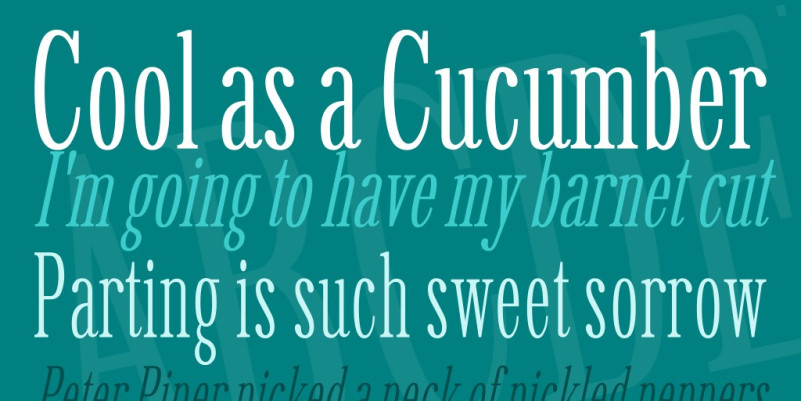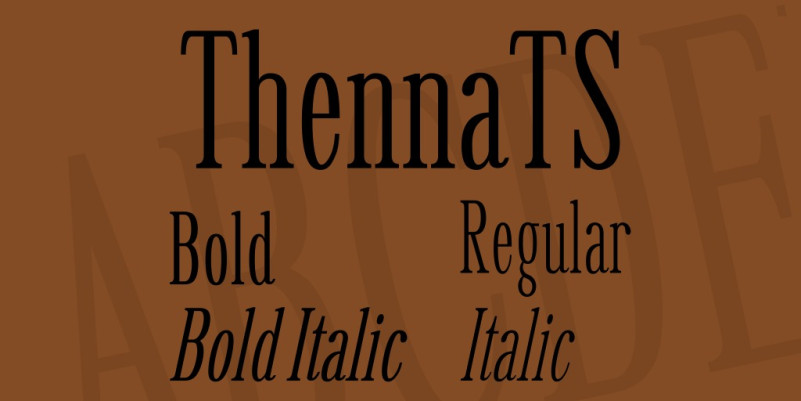
ThennaTS Font
Grab our new font, ThennaTS Serif Font, is a contrasting, very narrow and thin serif font of the Latin alphabet that can be used for typing headlines, titles, headlines in newspapers, magazines, on book covers, brochures, for making text on logos, posters, banners, leaflets and so on.